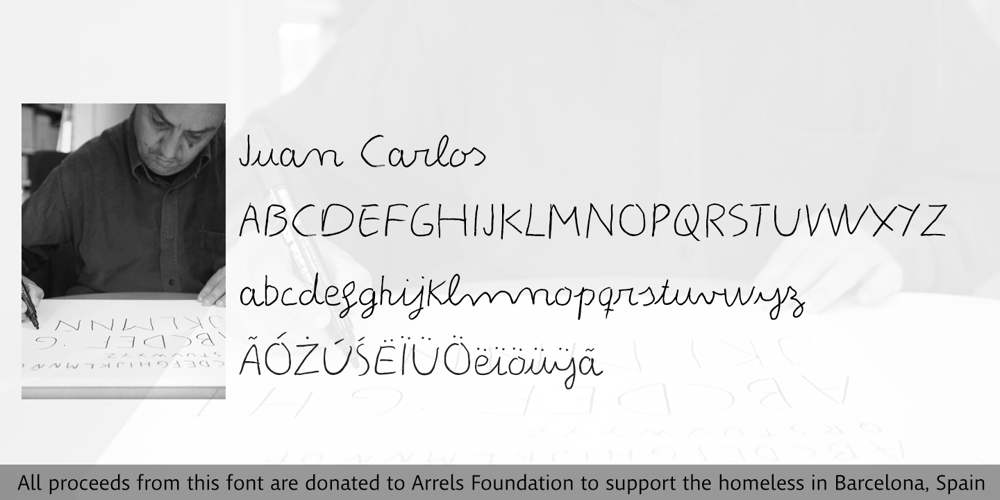
Juan Carlos Font Family was designed by published by Homelessfonts. Juan Carlos contains 1 styles and family package options. Homelessfonts is an initiative by the Arrels foundation to support, raise awareness and bring some dignity to the life of homeless people in Barcelona Spain. Each of the fonts was carefully digitized from the handwriting of different homeless people who agreed to participate in this initiative. A biography/story of each homeless person captures their story, to help raise awareness and bring some dignity to the life of homeless people. Monotype is pleased to donate all revenue from the sales of Homelessfonts to the Arrels foundation in support of their mission to provide the homeless people in Barcelona with a path to independence with accommodations, food, social and health care. Juan Carlos was born in Barcelona, Spain 46 years ago. Since the age of 17 – and during eleven years – he worked double shifts of eight hours every day in a factory. Excessive work and family problems debilitated his health and he lost his job. He then faced a dilemma: to spend unemployment benefits to pay for rent or for food. For a few years, he worked helping in the kitchens of different restaurants while he lived on a pension, until he was definitively left without work and ended up living in the street for 10 years. “In the street I tried to find rest in the ATMs of banks. I preferred to be alone, and if I ran into conflictive people, I looked for somewhere else” he explains. Living in the street he was the victim of an aggression. Since then, with the help of Arrels he moved into a pension. Today, Juan Carlos is a volunteer in the shower service of Arrels, the same showers he used during years. He also collaborates with the maintenance team, helps prepare hygienic and cleaning material, and participates in activities such as the theatre group and the football team.